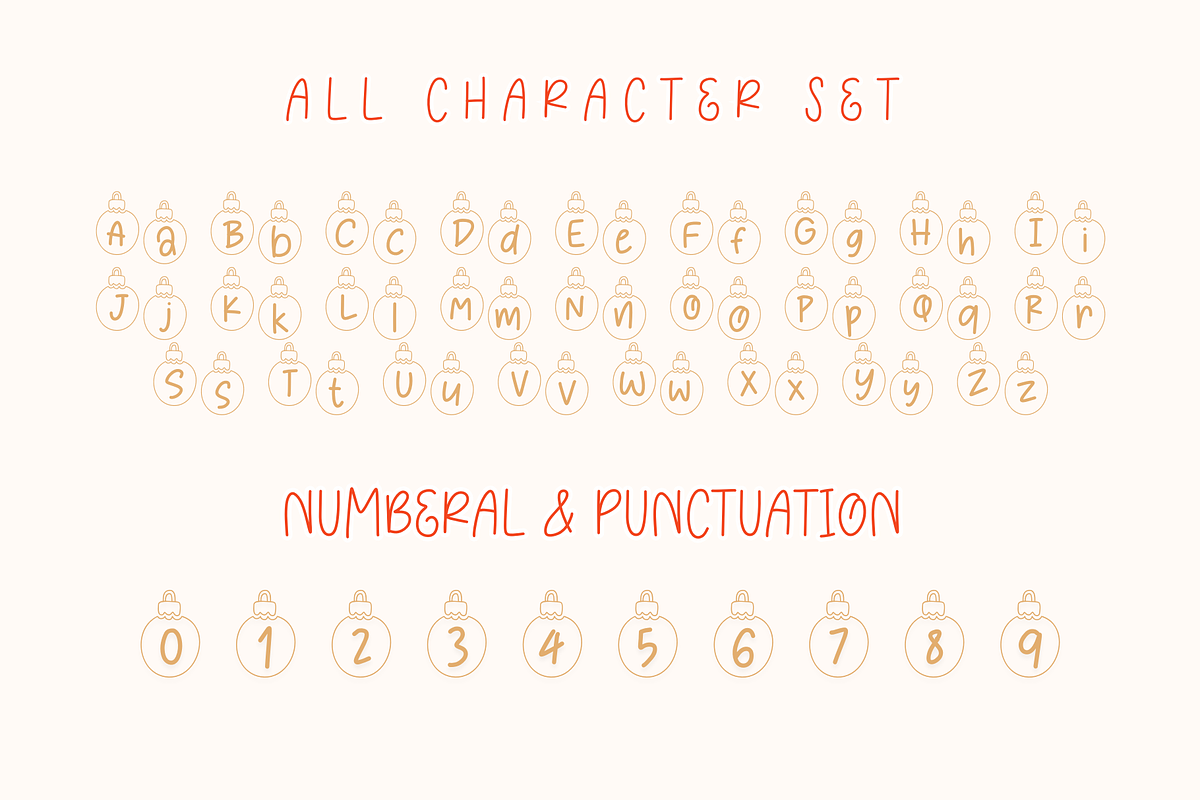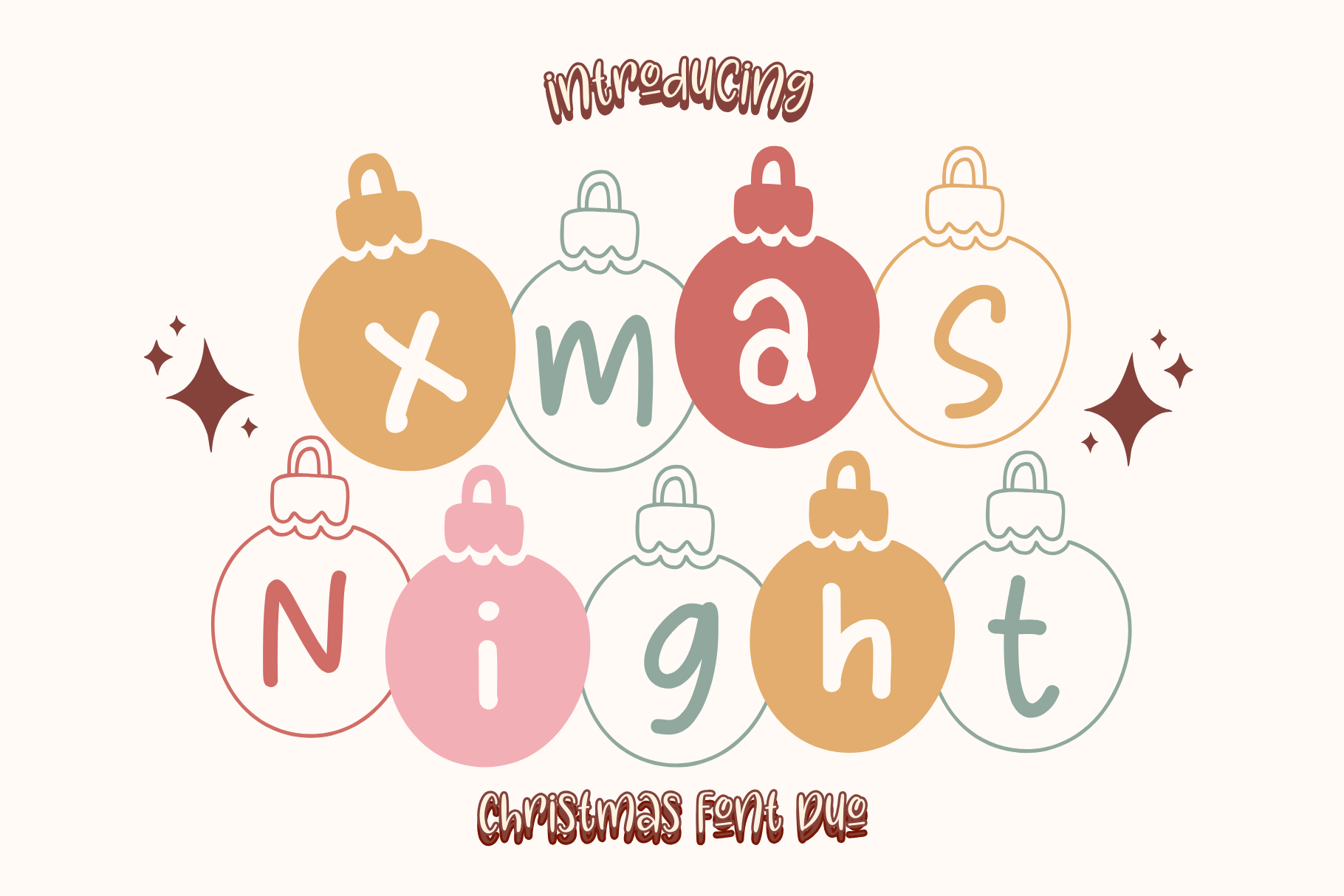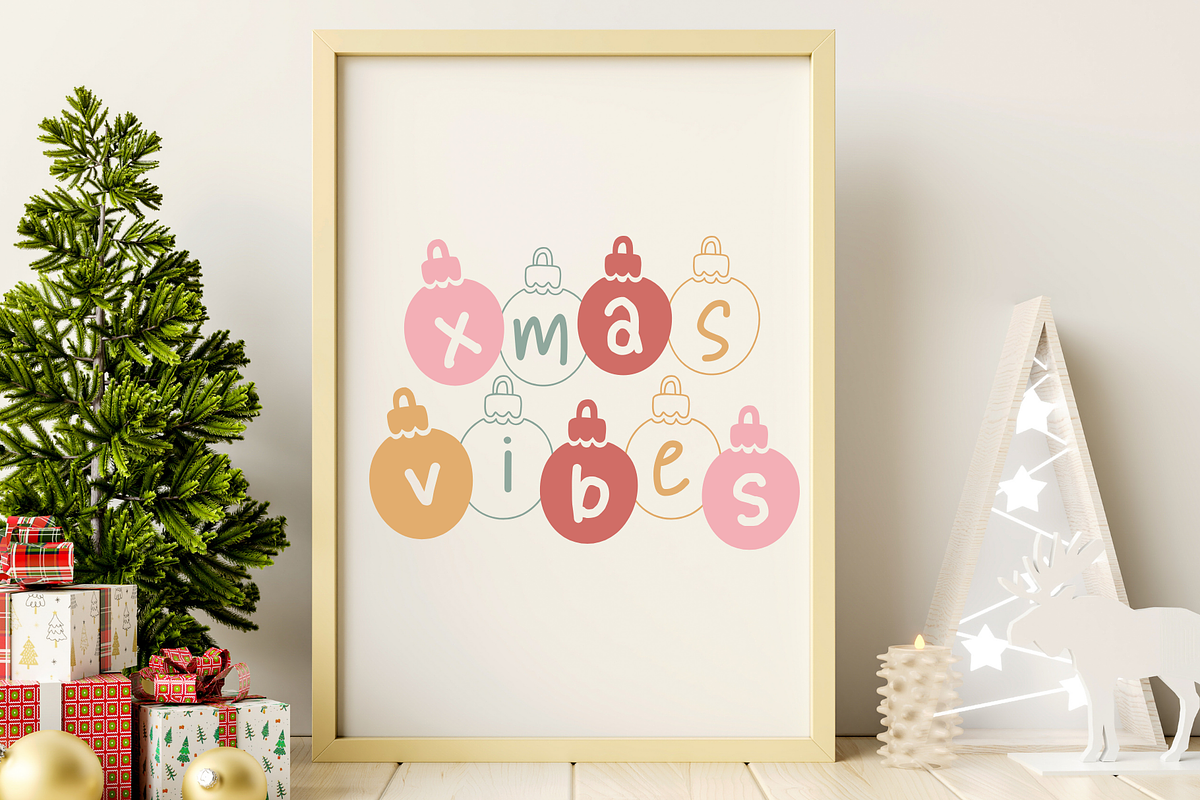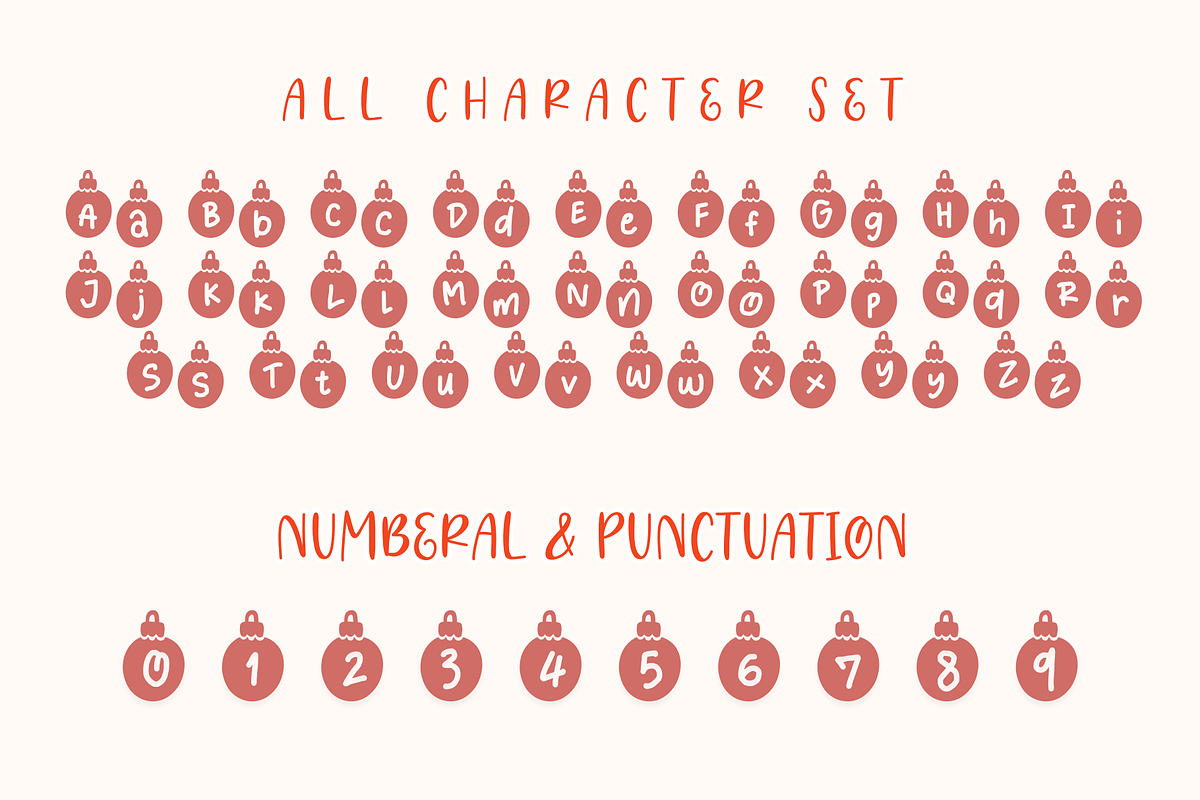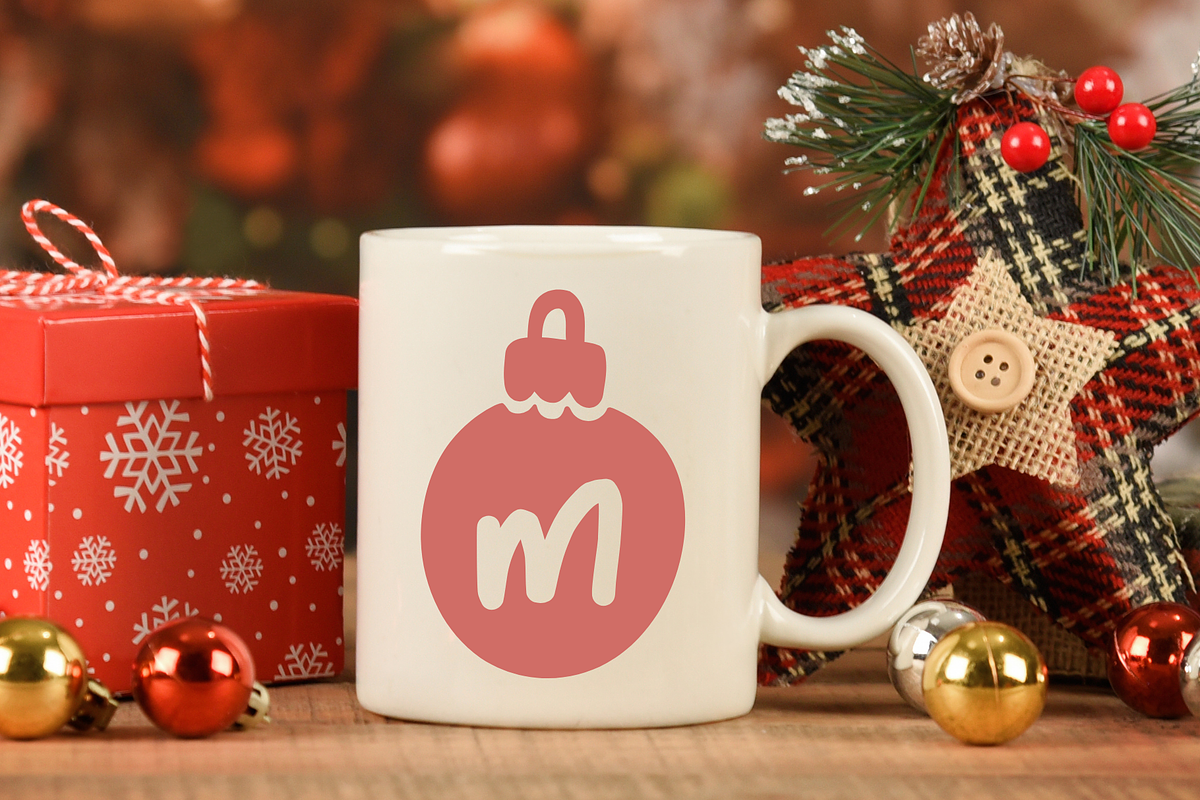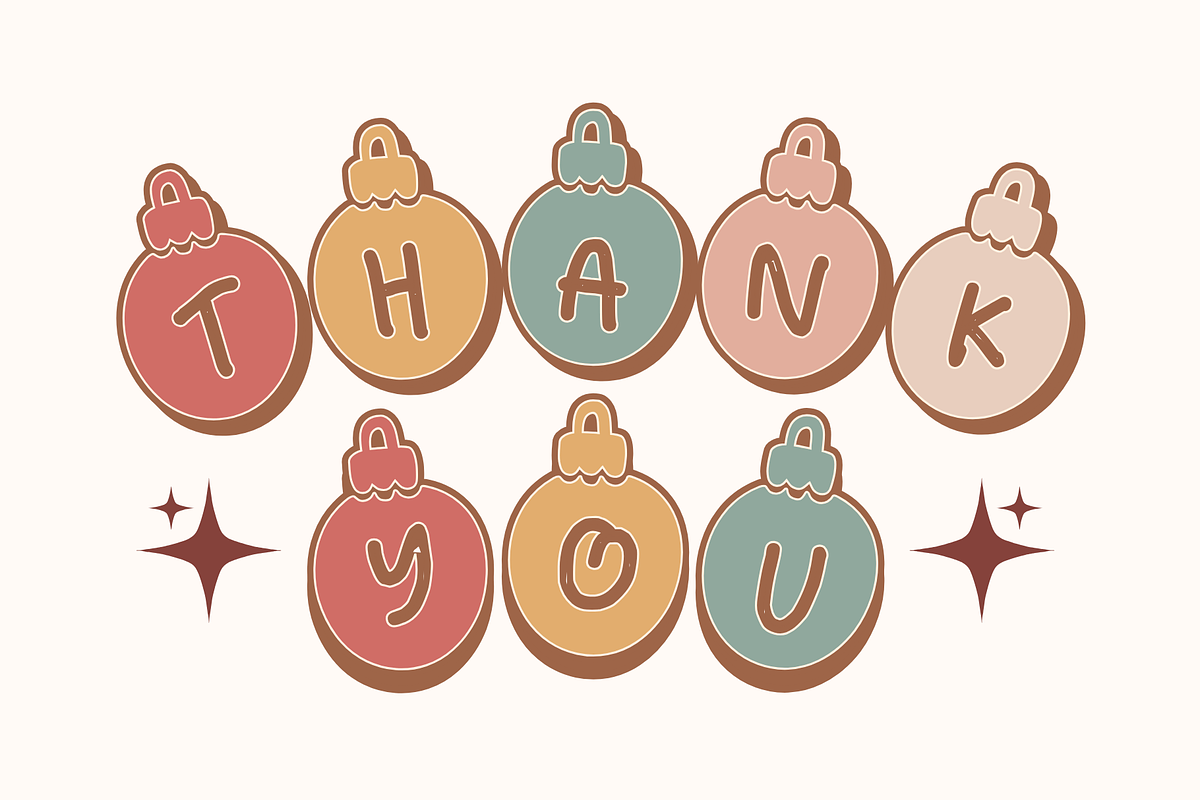
Xmas Night is a display font
Xmas Night is a display font. It embodies playfulness and authenticity and is the perfect choice for all your favorite projects such as blog posts, logos, branding, ads, invitations, greeting cards, planners, photo albums, decorations, and more. Add it to any of your designs, and enjoy the results!